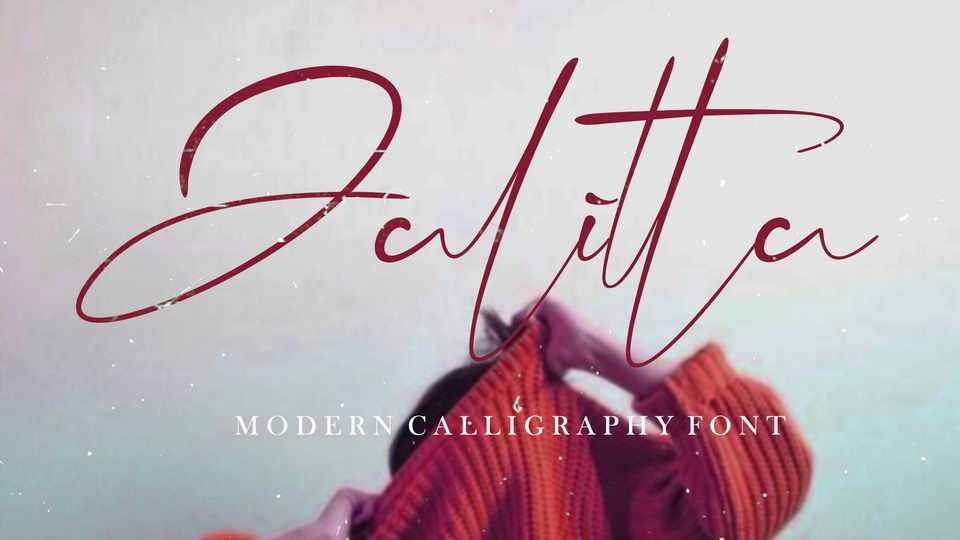
Download Jalitta font, a stylish modern calligraphy script with casual chic flair. Jalitta script is perfect for signature style logos, branding, wedding invites and cards.
Designer: Zelow Type